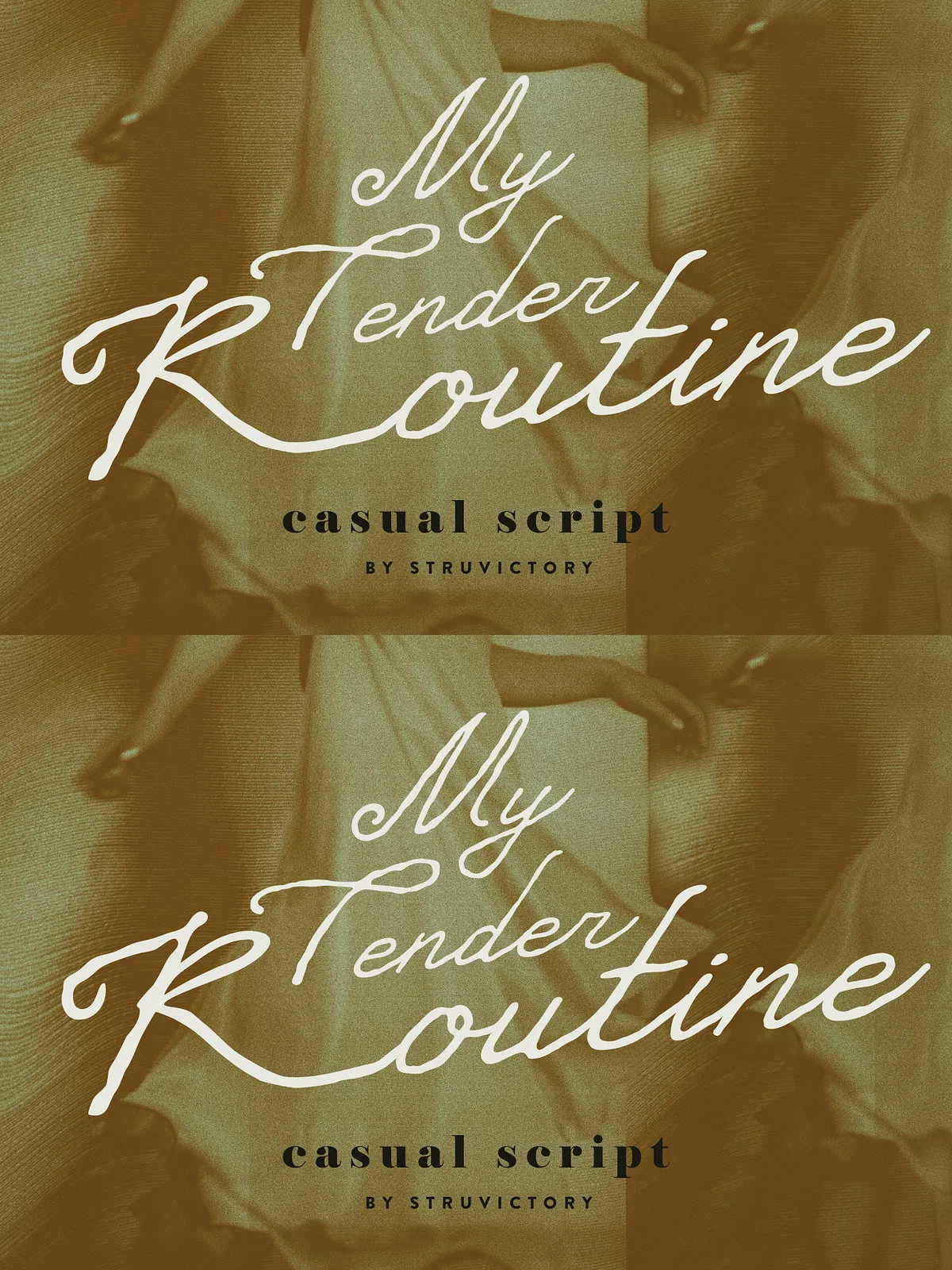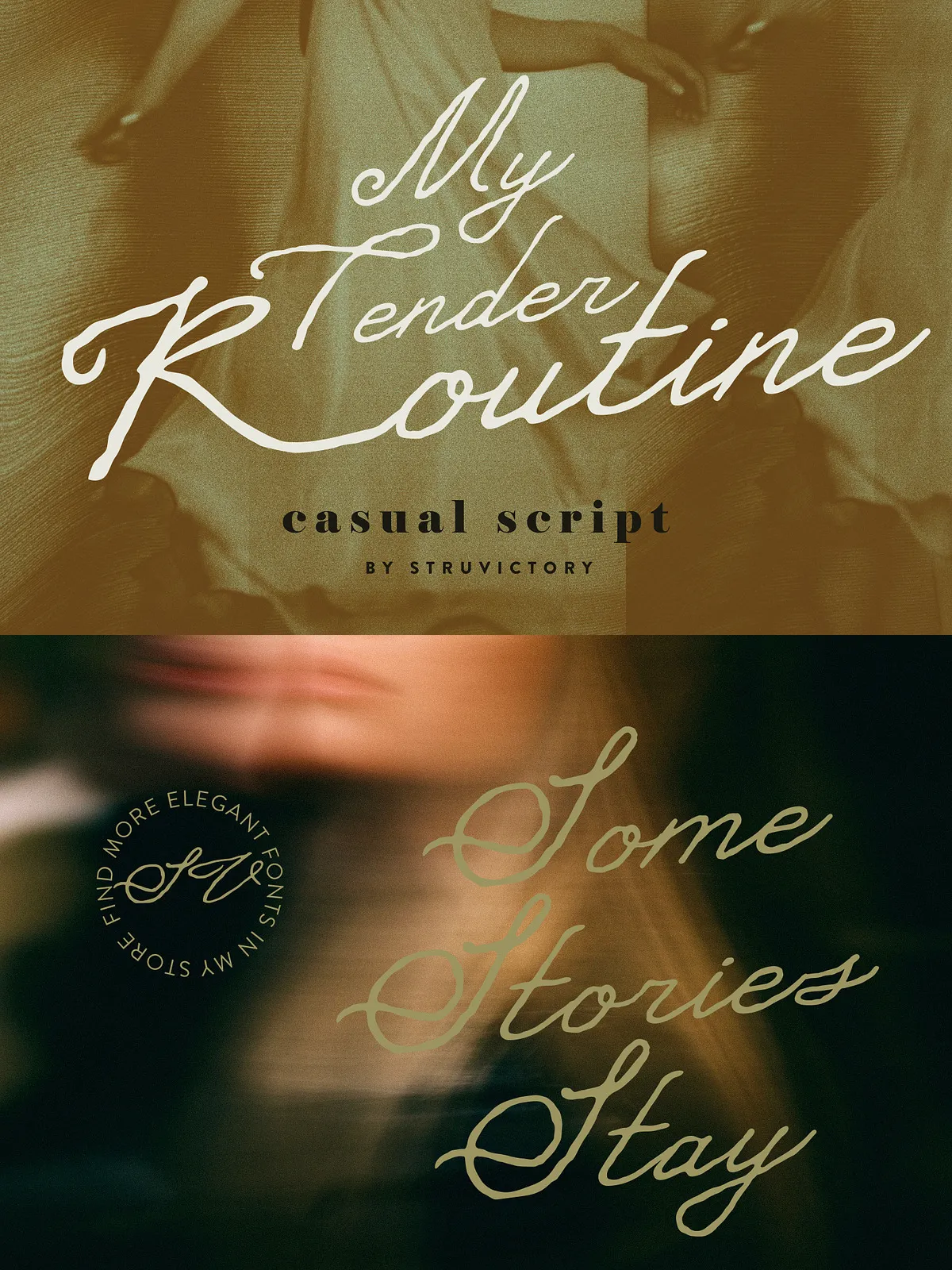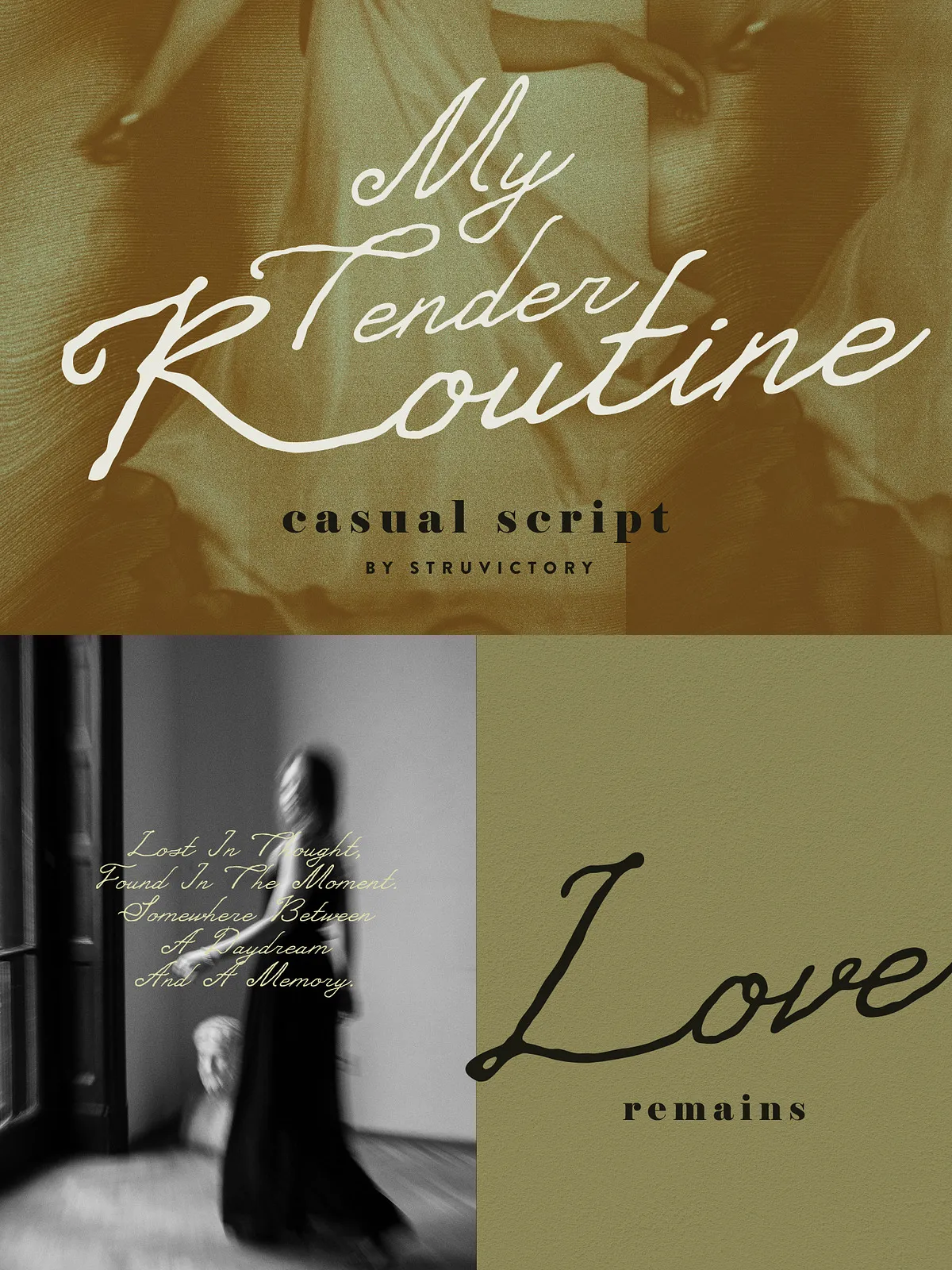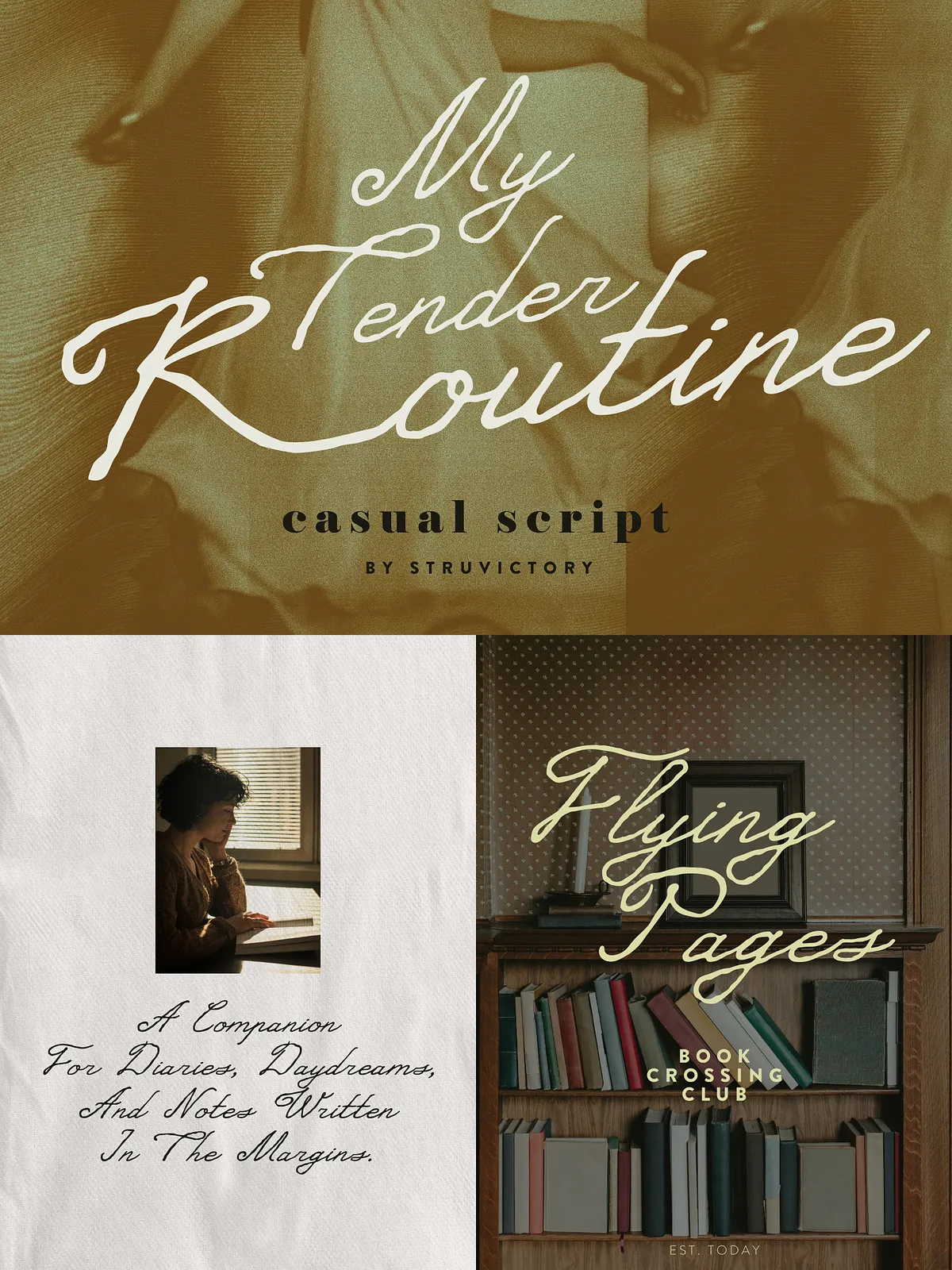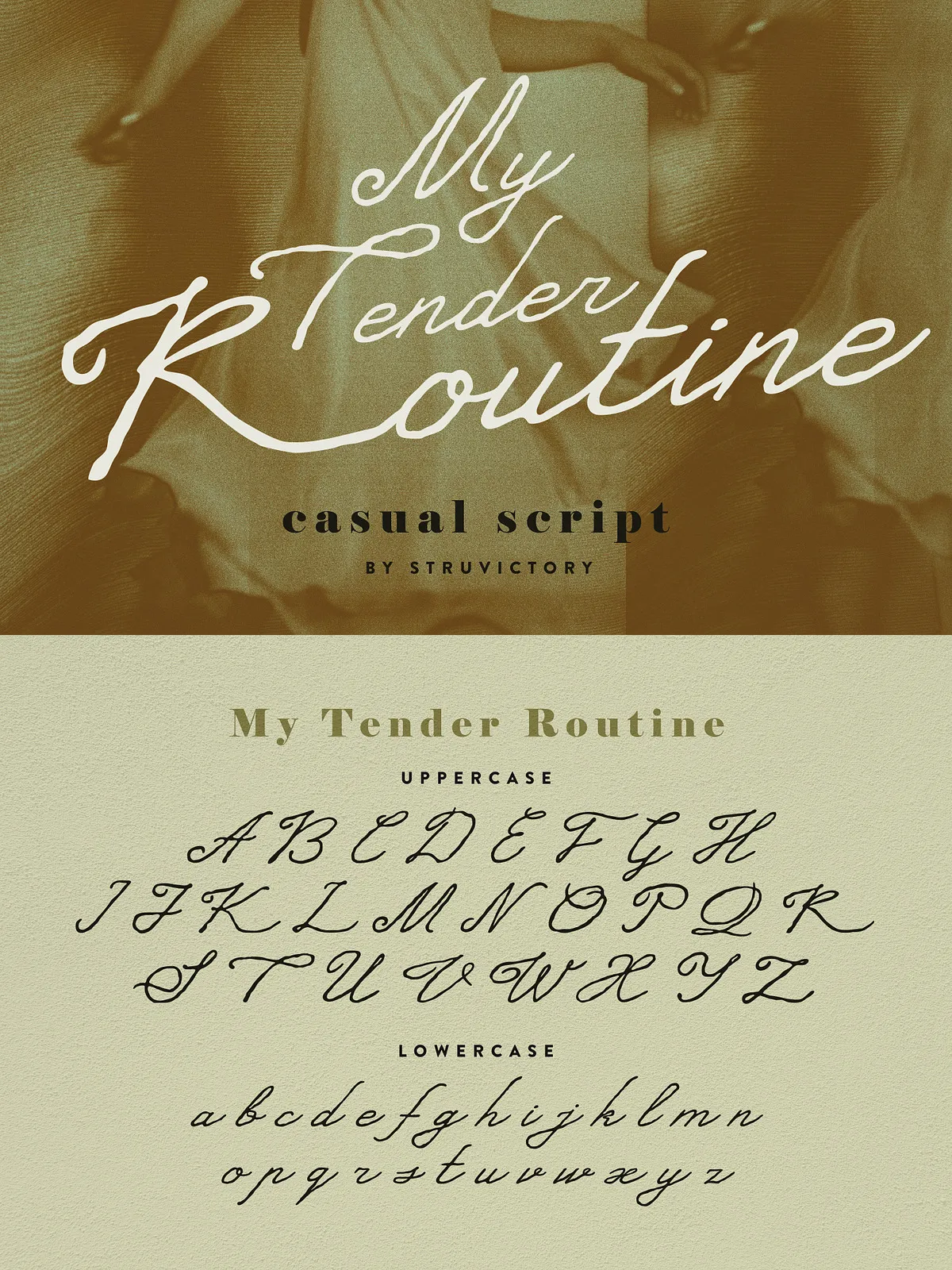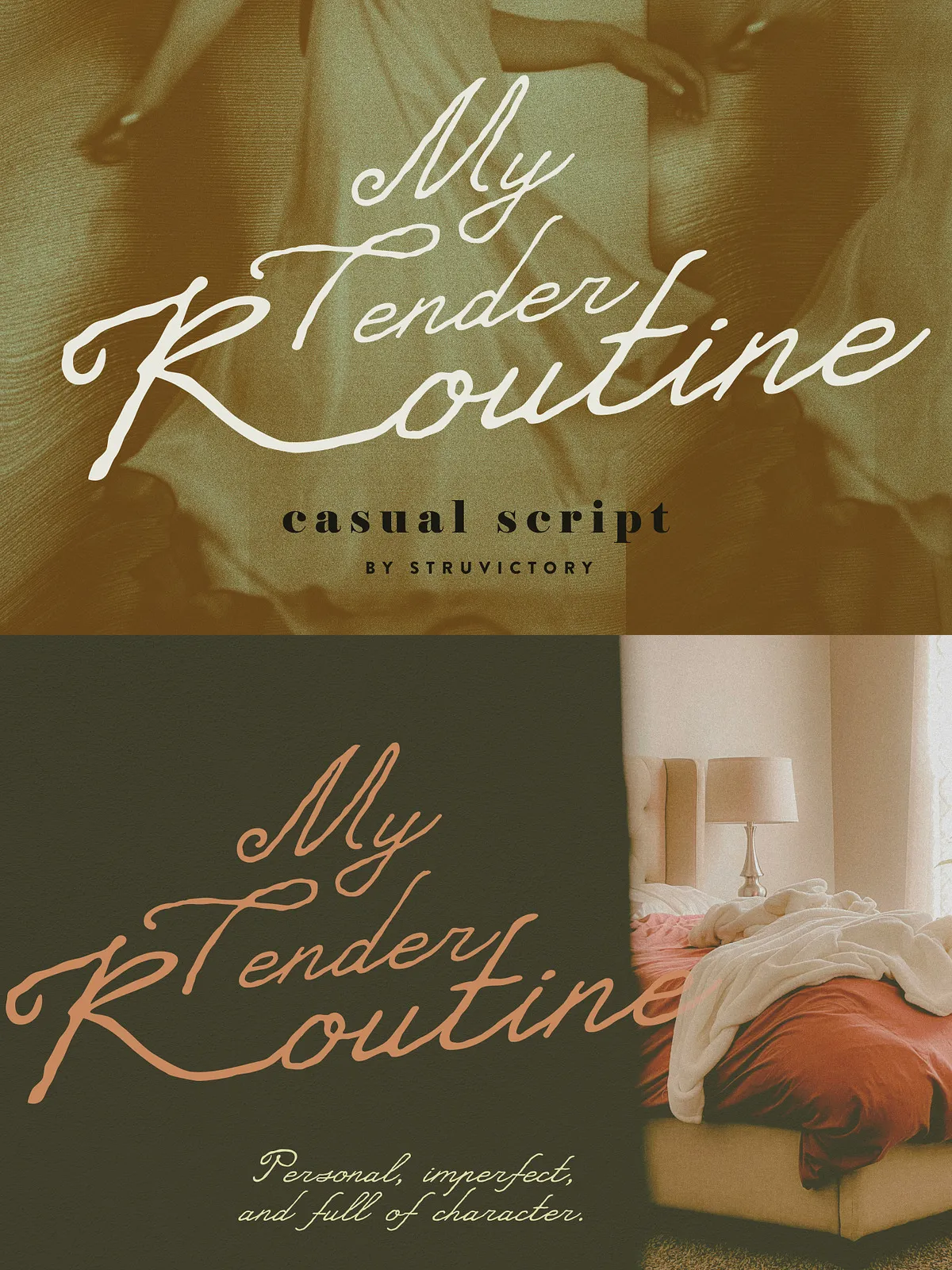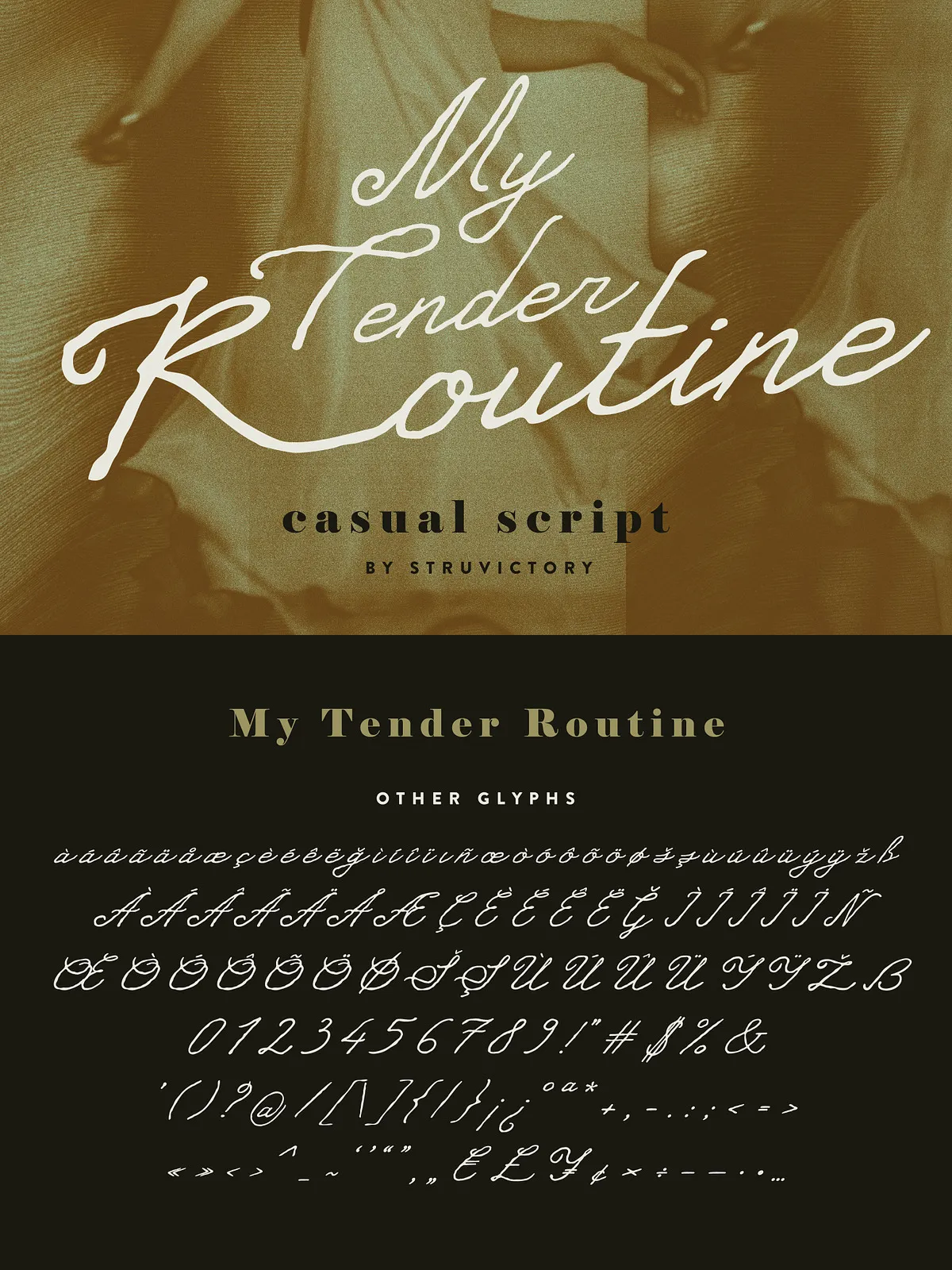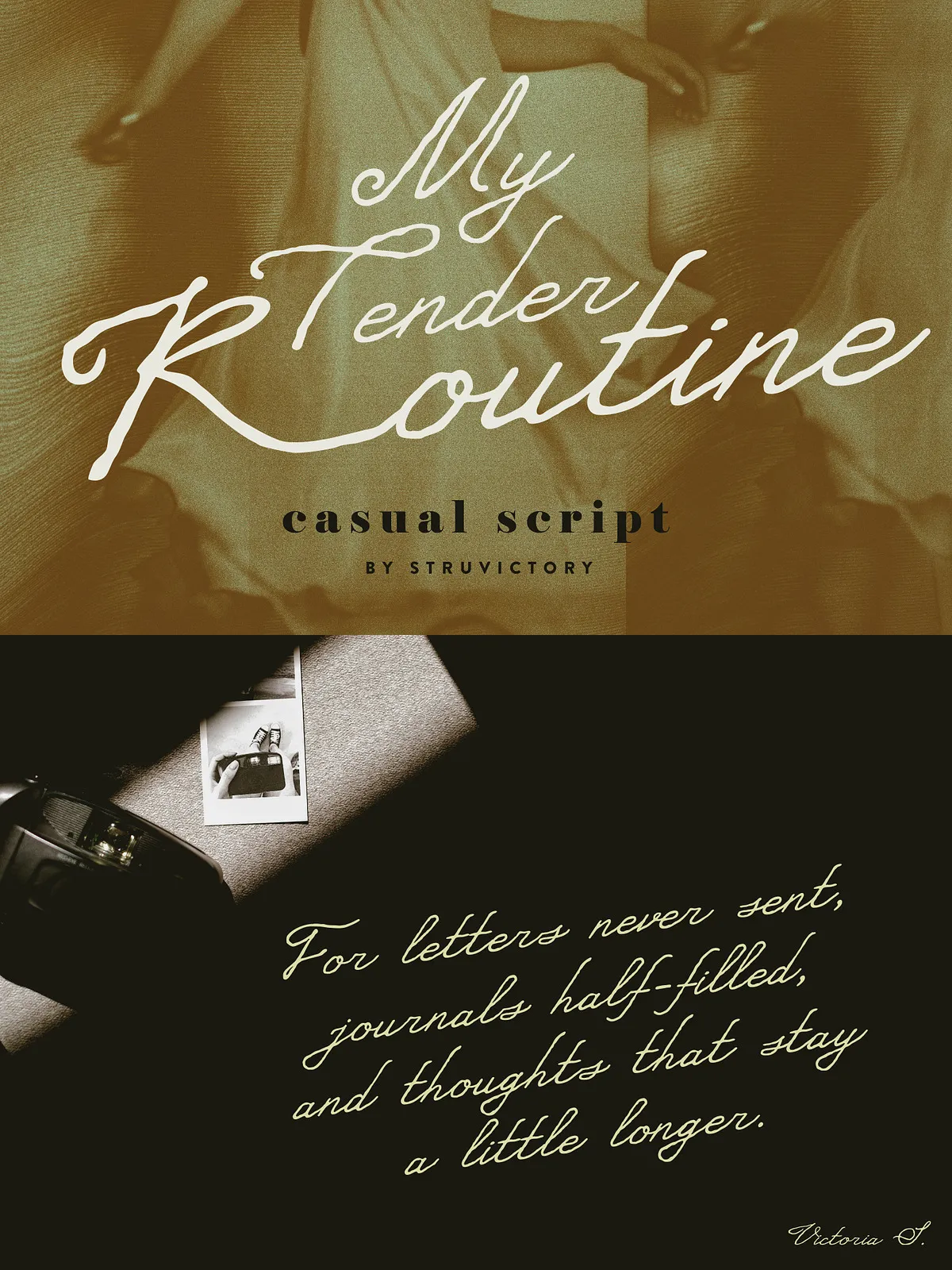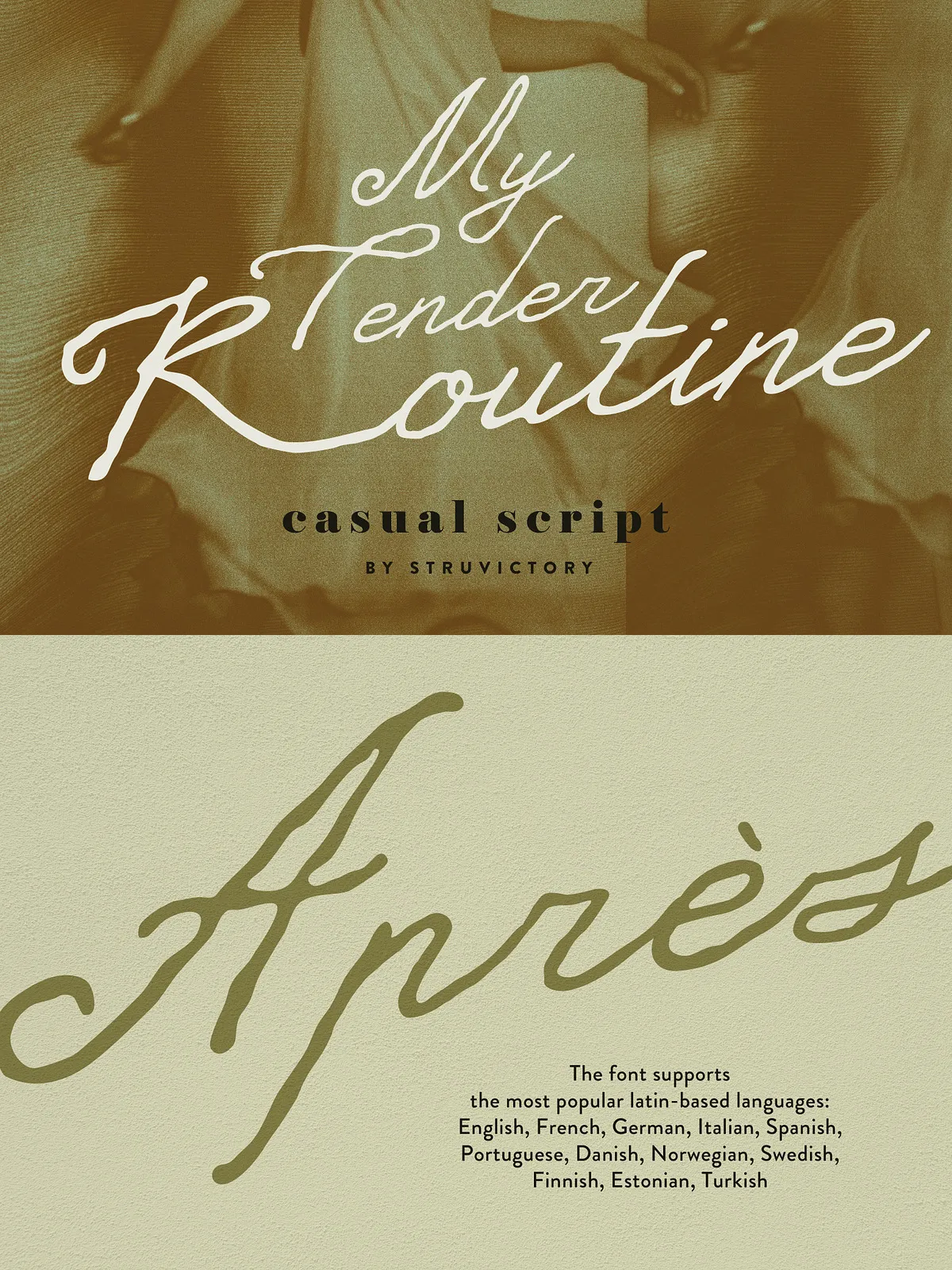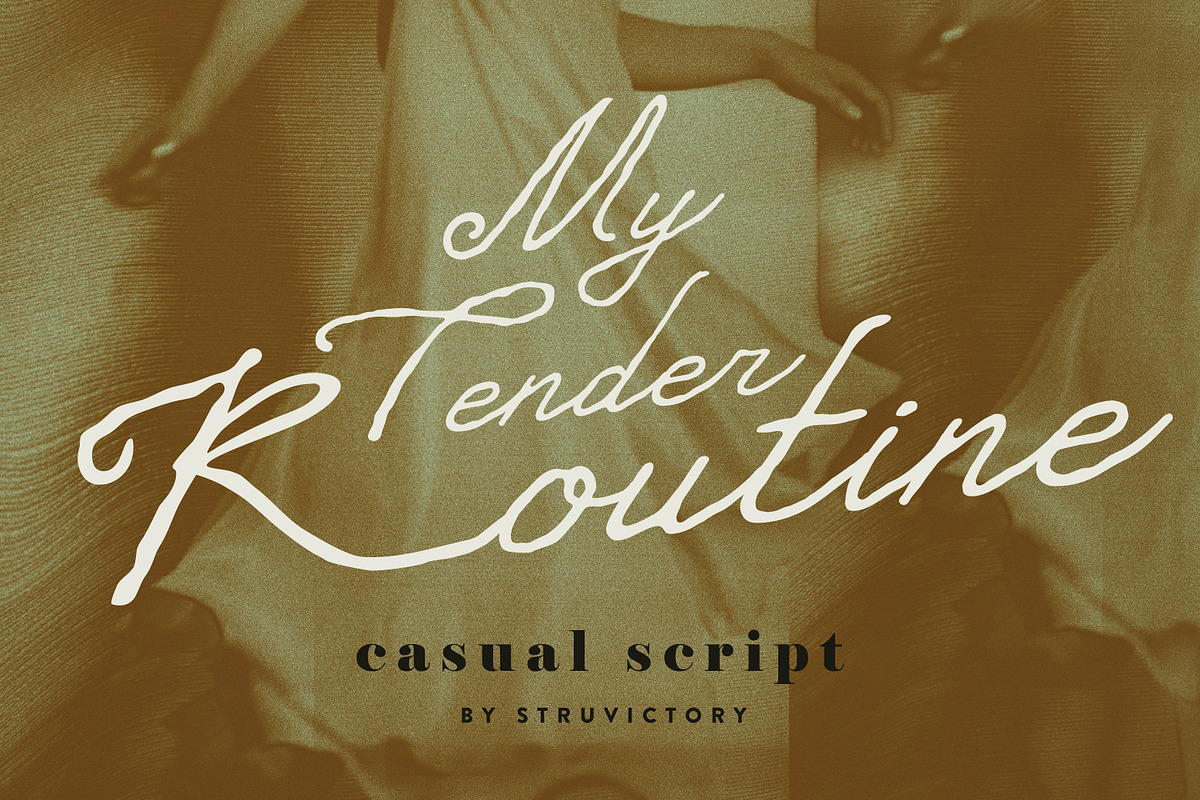
My Tender Routine is a casual handwritten script inspired by quiet mornings, well-loved journals, and the beauty of everyday rituals. With its flowing strokes, natural imperfections, and effortless charm, this font feels personal, warm, and authentic. Whether you’re designing book covers, lifestyle branding, packaging, social media content, invitations, editorials, or heartfelt quotes, My Tender Routine brings a sense of familiarity and gentle character to every project. Created for storytellers, dreamers, and lovers of the little things, it captures the poetry hidden in ordinary days.
My Tender Routine supports the most popular latin-based languages, you can check the symbol you need by typing a couple of words in the font preview box.